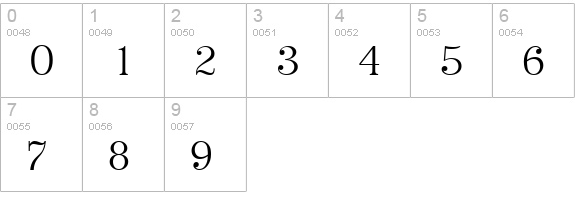
PriamosSerial-Xlight-Regular is the standard, neutral variant in the PriamosSerial typeface family \xE2\x80\x94 well suited to general body text, paragraphs, and standard typographic work.
PriamosSerial-Xlight-Regular is a sophisticated and elegant font that exudes a sense of modernity and style. With its clean lines and minimalist design, this font is perfect for a wide range of projects, from branding to editorial design. The light weight of the font adds a touch of delicacy and refinement to any text. PriamosSerial-Xlight-Regular is versatile and easy to read, making it a great choice for both print and digital applications. The best part? PriamosSerial-Xlight-Regular is available for free download at FontsMarket.com, making it accessible to designers and creatives looking to elevate their projects without breaking the bank. Don't miss out on this fantastic opportunity to enhance your designs with the timeless beauty of PriamosSerial-Xlight-Regular. Download it today and let your creativity soar!